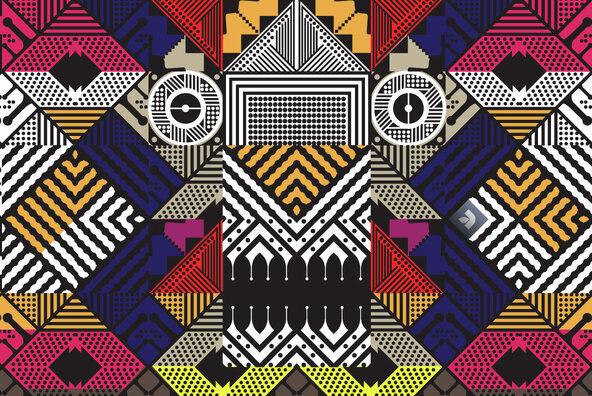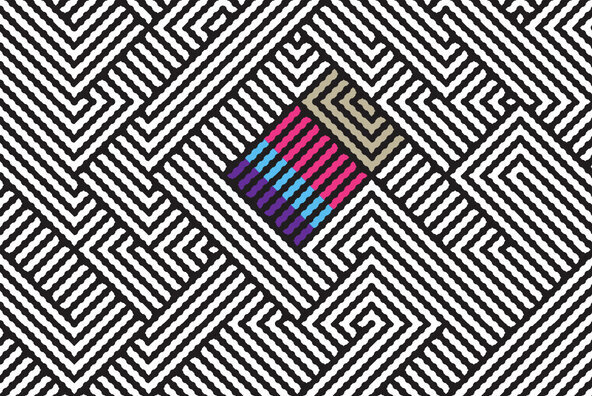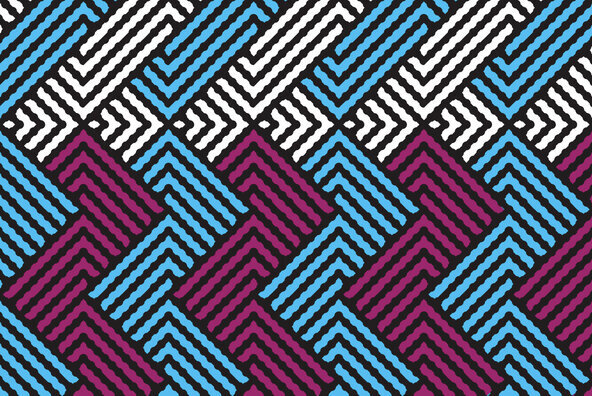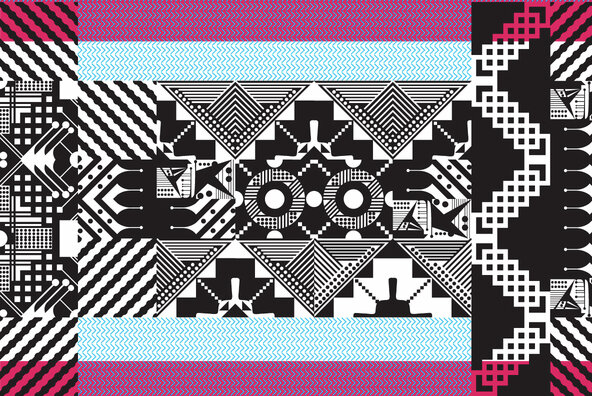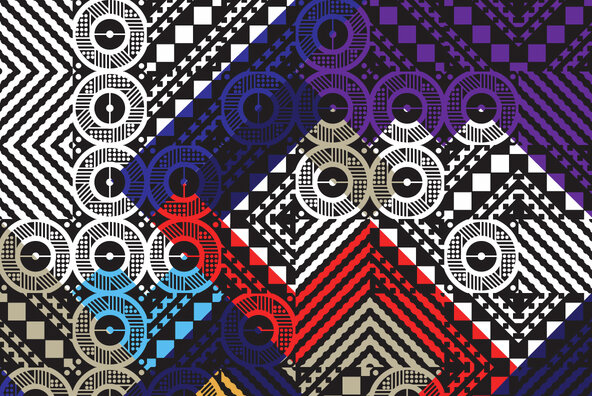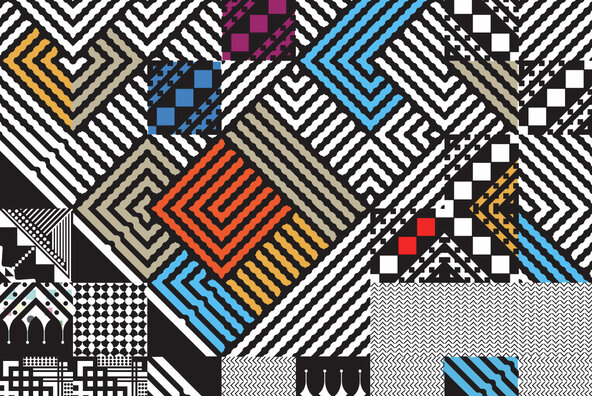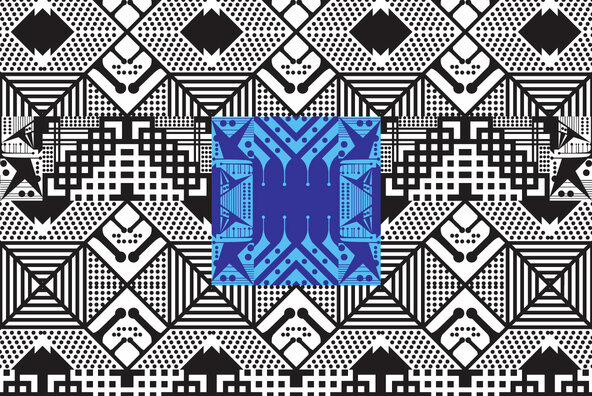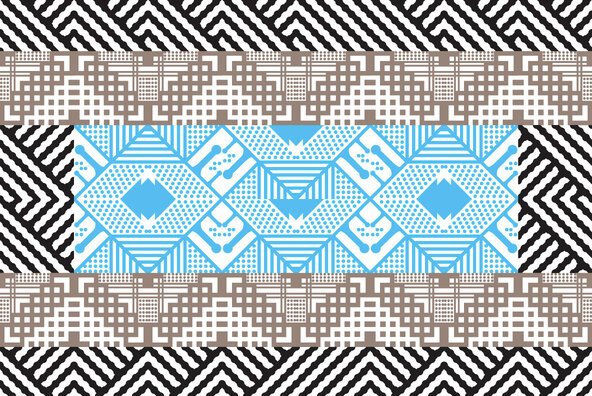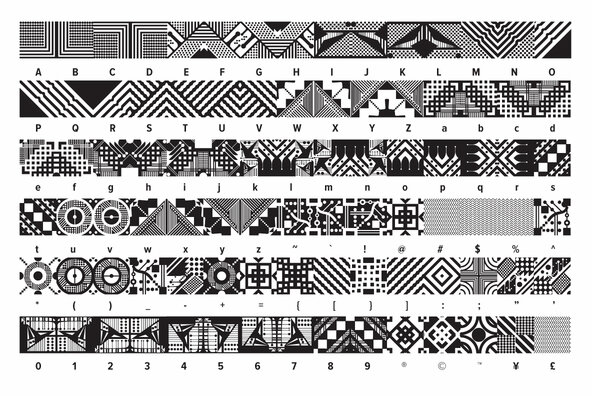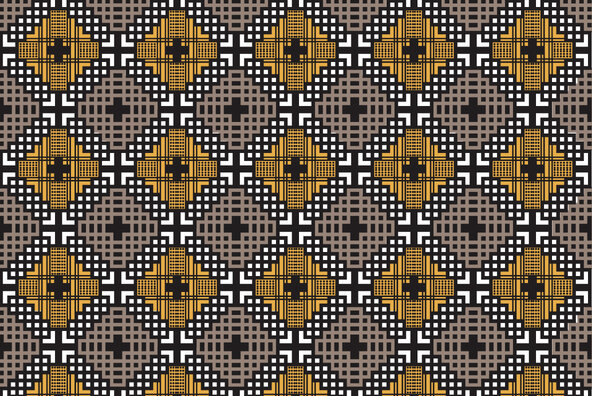
YWFT Array
YWFT Array is a beautifully-drawn icon font of stylish geometric illustrations, with an eclectic, art deco vibe. With its bisected circles and the bold, linear symmetry of its triangular border corners, YWFT Array is invaluable when creating a type specimen border, or posters and ads that seek to capitalize on a historical style. Just start typing, and YWFT Array's elegance and glamor will do all the pattern work for you automatically, with a smooth modernity that is almost magical. William Van Alen would be proud.